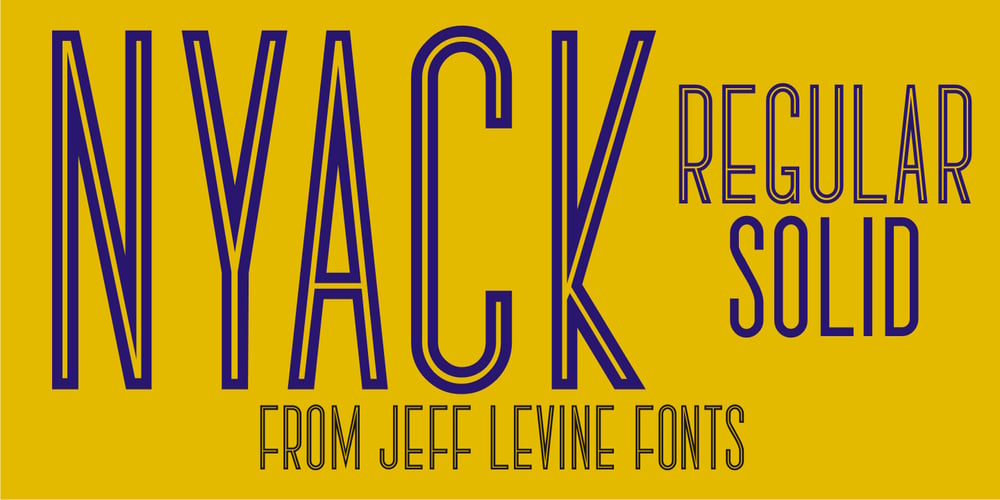
Nyack JNL Font Family was designed by Jeff Levine and published by Jeff Levine. Nyack JNL contains 2 styles and family package options. Nyack is a built-from-scratch sans serif font with both inline and solid versions. There’s a touch of Art Deco to its design for a touch of past elegance, but its use is not limited to retro projects.